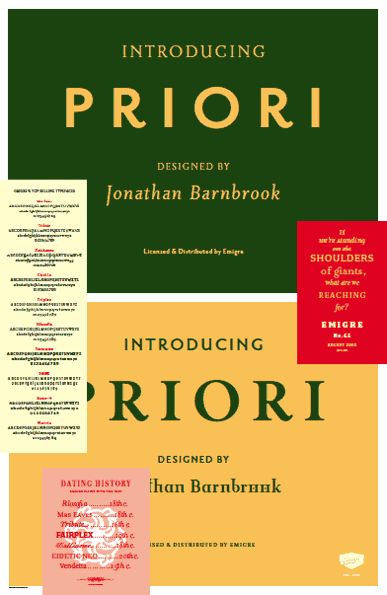
This text was first published in 2003 on the reverse side of the promotional poster for Priori.
After the popular successes of Exocet and Mason, Emigre has once again teamed up with Jonathan Barnbrook to bring you his latest venture into type land.*
Priori is a logical progression from Mason, a typeface he designed around ten years ago. Where Mason was designed purely for display purposes and featured only caps, Priori includes lower case, companion serif and sans serif versions, alternates and, according to its creator, is shooting for text face status - a bold claim from a designer who loves to wear his influences on his sleeve and who has little use for typography that aspires to be "neutral" or "transparent."
Like many of Barnbrook's typeface designs, Priori is based on his interest in British typography of the early 20th century. It is inspired by the work of famous British typographers, such as Eric Gill and Edward Johnston. But it also embraces all of the signage and lettering that Barnbrook observes in the streets, cathedrals, and public buildings of his London neighborhood. This mixing of native influences with a contemporary pop culture intent is what gives Barnbrook's types a distinct and unique flavor. Like its creator, Priori is a one of a kind.
About Priori
At Emigre we have always had a soft spot for typefaces designed by graphic designers as opposed to typefaces designed by type designers. When graphic designers design type, there is a decidedly different intent and aesthetic at play that often results in surprising and unusual solutions to letterforms.
The professional type designer is almost always concerned with following tradition and established reading habits. Their knowledge and experience ensure that the basic principles of type design are well taken care of - all the small details that are so important when designing a complete font (especially text fonts), such as spacing, kerning, modulation, armature, etc.
Graphic designers, on the other hand, have something else in mind when they design typefaces. Their type is usually filled with connotations, quotes, questions, contradictions, critiques, and idiosyncrasies. Their typefaces are often an outgrowth of specific design jobs requiring custom made letters for posters or logos. They are less concerned with, and often also less adept at, the finer points of drawing type. They are also less restricted by tradition, which lends their fonts a unique appeal.
For a foundry to release such fonts commercially is a balancing act of correcting obvious mistakes and omissions while keeping the integrity and soul of the original idea intact. In the end, these fonts are not idiot-proof. They often require a trained, discriminating eye to use them effectively. This results in fonts that are perhaps limited in their application, but high on emotion and expressiveness when used well.
Jonathan Barnbrook is first and foremost a graphic designer. He is well known for his recent collaborations with the British artist Damien Hirst and his work for Adbusters magazine. He is outspoken about his political beliefs, and in his personal work often addresses the dilemma of reconciling the commercial aspects inherent in graphic design with his ambition to use design as a weapon for social change.
Another aspect that attracts us to Barnbrook's work is his ability to draw inspiration from his immediate surroundings. To us, his work comes across as particularly British with a definite leaning towards religious and medieval imagery, although he is quick to point out that he is neither religious nor patriotic. In a world that is becoming increasingly globalized with cultural specificity waning, Barnbrook's choice to draw inspiration from his own culture is both brave and highly effective. His work stands miles apart from most of his contemporaries. This preference is particularly obvious in the typefaces he designs.
Despite all their inherent contradictions and sometimes downright illegible characters, Barnbrook's fonts have sold remarkably well, particularly the Emigre releases Mason and Exocet, two typefaces based on primitive Greek and Roman stone carving and loaded with Barnbrook's typical religious and medieval connotations. Exocet became an immediate favorite for particularly dark, Gothic-like video games, such as Diablo, and comic strips of similar ilk. Surprisingly, it was used just as frequently in applications for an entirely different purpose, such as the logo for the upscale TAZO teas. Mason, too, found usage in a number of dark, cult-like settings, while also being selected as the title font for Walt Disney's re-release of Snow White and the Seven Dwarfs. The wide-ranging popularity of these fonts sprouted numerous rip-off and look-alike designs, all furthering the popularity of Barnbrook's fonts.
Emigre has never shied away from releasing fonts that have wide appeal. We enjoy seeing our releases saturate popular culture on all levels, although we are usually as surprised by their success as anybody else. Obviously Barnbrook has a finger on the pulse of a particular segment of type design, and we were happy to collaborate with him again on this new release.
Priori is a logical progression from Mason, a typeface he designed around ten years ago. Mason was designed as an all caps font, because, as Barnbrook points out, "At that time I disliked lower case. It was a reaction to the 'pretend modernism' that I saw everywhere around me. I thought 'Why do I need lower case letters when the most beautiful typography was set in capitals in Rome?'"
In 2009, Priori Acute was added to the family. This experiment into three-dimensional letter form design plays with incongruous perspectives and twisting shapes that trick the eye.